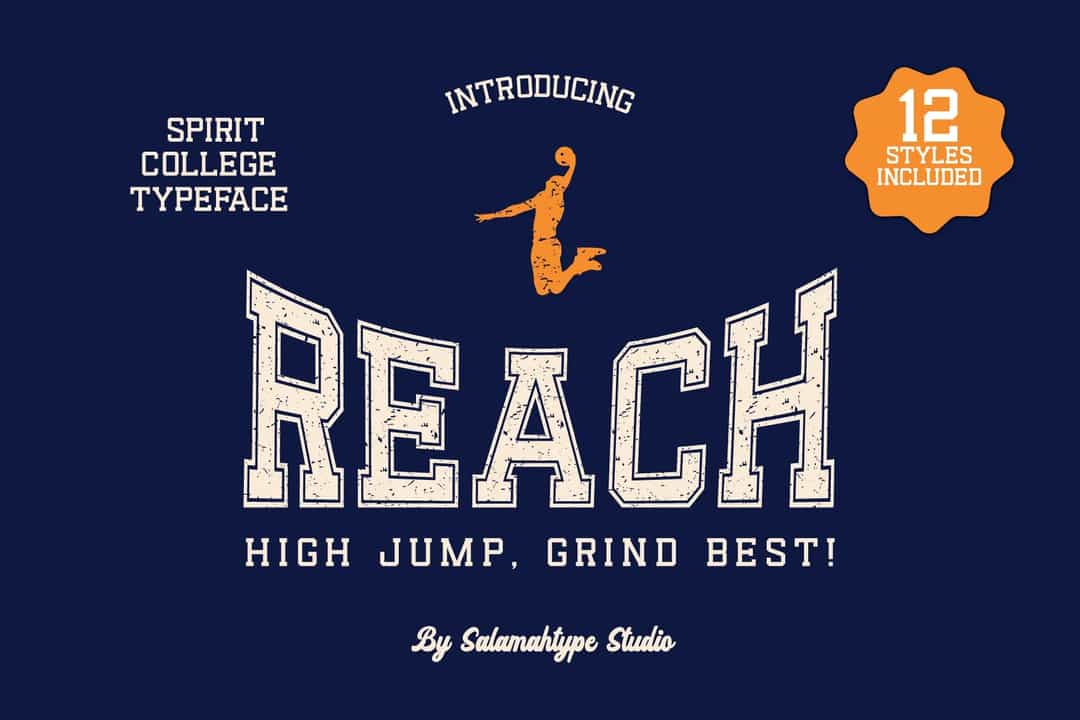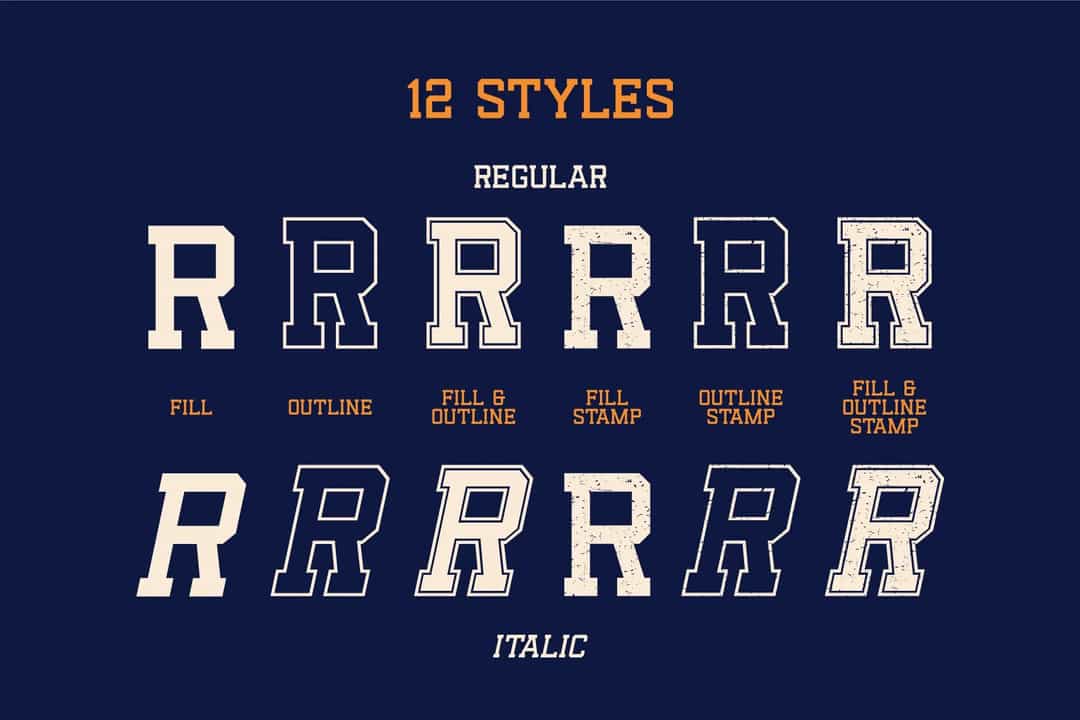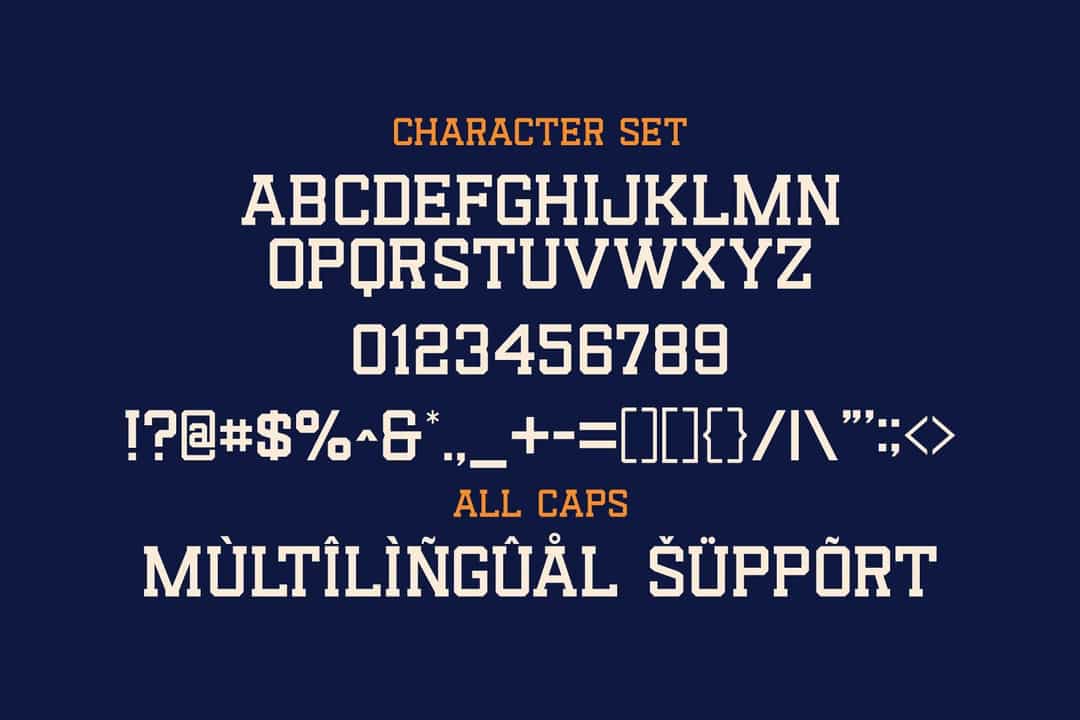
Discover Reach Font, part of the Slab Serif Display collection—a versatile and unique font perfect for adding a personal touch to your projects. Download it for free and enjoy crafting designs with style, from invitations to social media posts. This font is available exclusively for personal use, giving you the freedom to create without limits. Unlock your creativity with Reach Font today!
At Reach Font, we have designed a display font with 12 styles (Fill-Fill Outline-Stamp-Outline). Perfect for branding purposes and labels.